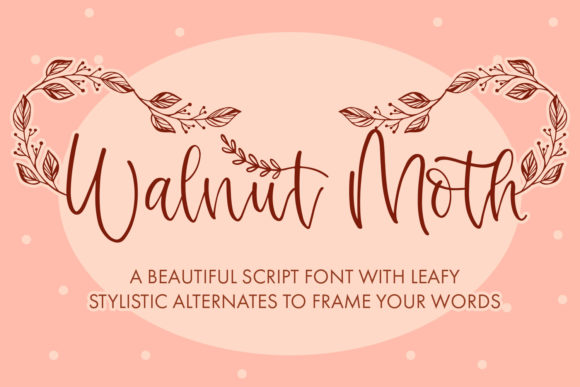
Embrace the beauty of handwritten elegance with Walnut Moth, the captivating script font that will transform your digital creations into works of art. Let your words dance across the screen with a grace and fluidity that will leave your audience spellbound.
Walnut Moth is not just a font; it's an experience. Its varying baseline, smooth lines, and stunning alternates create a sense of movement and dynamism that will bring life to your designs. From wedding invitations and thank-you cards to quotes, greeting cards, logos, and business cards, Walnut Moth adds a touch of sophistication and charm to any project.
Immerse yourself in the world of Walnut Moth and discover the endless possibilities it offers. Create enchanting wedding invitations that reflect the love and joy of your special day, or design heartfelt thank-you cards that express your gratitude with a personal touch. Share inspiring quotes with friends and family in a way that resonates with their souls, or craft greeting cards that convey your warmest wishes in a truly unique style.
With Walnut Moth, your designs will stand out from the crowd, leaving a lasting impression on your audience. Its elegant curves and graceful lines will captivate their attention and draw them into your message. Whether you're a seasoned designer or just starting, Walnut Moth is the perfect font to elevate your creativity and take your designs to the next level.